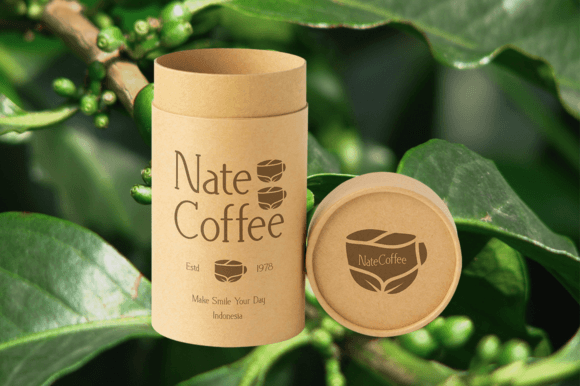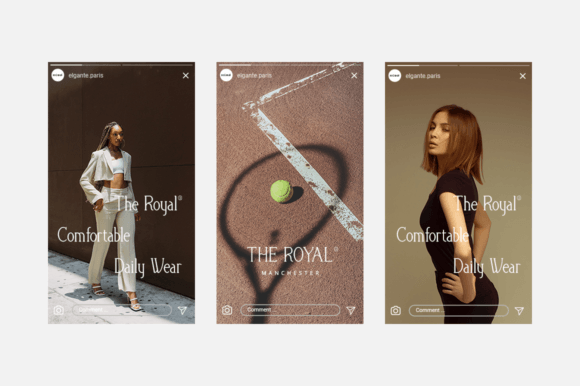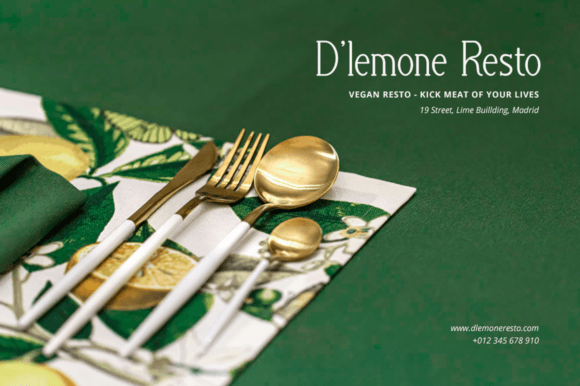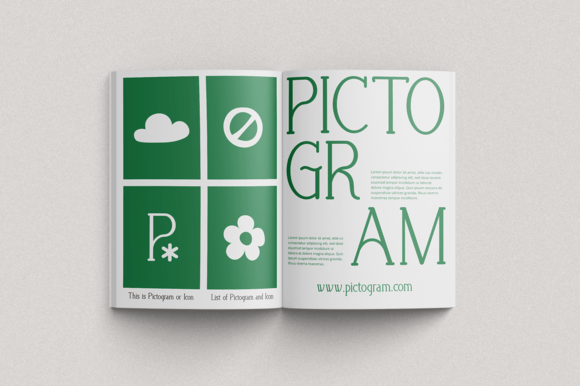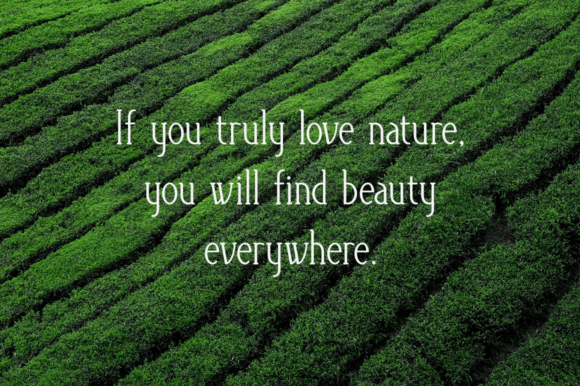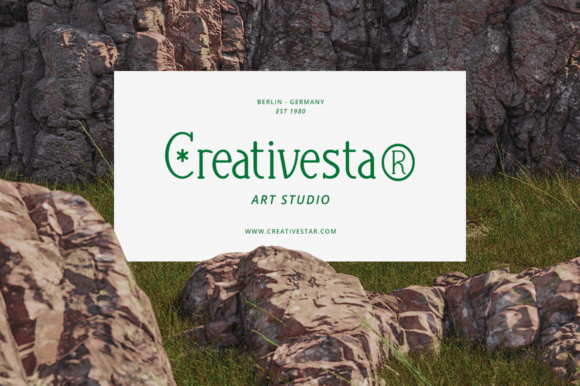
Introduction to Rolexiantes Font
As a designer, you’ve probably experienced that moment of creative block where you’re staring at a blank canvas, waiting for inspiration to strike. It’s like the entire world has come to a standstill, and all you can think about is finding that one perfect font to bring your project to life. For many of us, that moment is a constant struggle, but what if I told you there’s a font that can change the game?
| 👤 Author | RockboyStudio |
Enter the Rolexiantes Font, a fresh serif font that’s about to revolutionize your design workflow. This high-quality font is not only stunning but also incredibly versatile, making it the perfect addition to any creative project. Whether you’re working on a personal or professional project, the Rolexiantes Font is sure to elevate your design and make it stand out from the crowd.
What sets the Rolexiantes Font apart is its unique ability to be matched to a wide range of projects, from brochures and business cards to website headers and social media graphics. With a transparent background and a free download option, this design resource is a game-changer for designers of all levels.
Key Features of Rolexiantes Font
- High-quality design: The Rolexiantes Font is a premium font designed for creative projects, offering a unique and stylish look.
- Large character set: The font includes a large character set, including uppercase and lowercase letters, numbers, and punctuation marks.
- Perfect for creative projects: The Rolexiantes Font is ideal for use in creative projects, such as logos, branding, and advertising materials.
Honest Review: Rolexiantes Font
As a designer, I’m always on the lookout for high-quality design resources to enhance my creative projects. I recently stumbled upon the Rolexiantes Font, and I’m excited to share my thoughts with you.
- ✨ The font has a unique, modern aesthetic that’s perfect for bold, eye-catching designs.
- ⚠️ The font may not be suitable for all design projects, as it can be quite bold and overwhelming.
- ⚠️ Some users may find the font’s unique style to be a bit too quirky or unconventional.
Overall, I think the Rolexiantes Font is a great addition to any designer’s toolkit. Its high quality and versatility make it an excellent choice for a wide range of creative projects. If you’re looking for a bold, modern font to elevate your designs, the Rolexiantes Font is definitely worth checking out.
The Rolexiantes Font is perfect for use in creative projects, such as logos, brochures, and social media graphics. Its high-quality design and transparent background make it ideal for use in presentations, documents, and websites. Whether you’re a professional designer or a hobbyist, the Rolexiantes Font is a valuable addition to any design resource library.